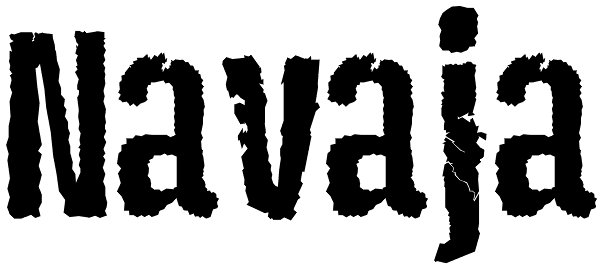
Navaja
Very few letter types with the context of grunge style fonts offer hierarchies to differentiate words in sentences or paragraphs. With Navaja I developed a font family that meets this need. This family is useful to organize the information into a...
Navaja Black
Navaja
Navaja Bold
Navaja Fat
Navaja ExtraBold
Navaja Dingbats